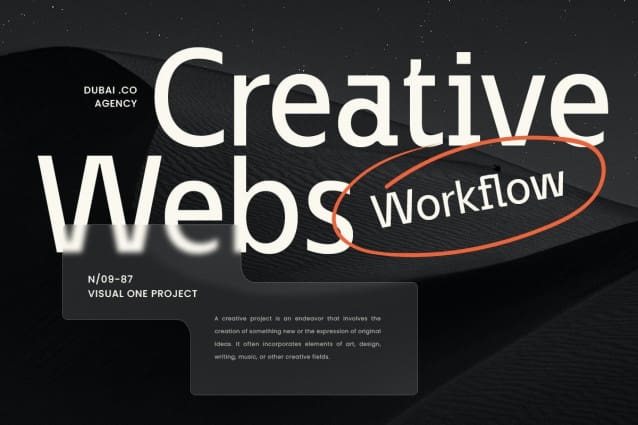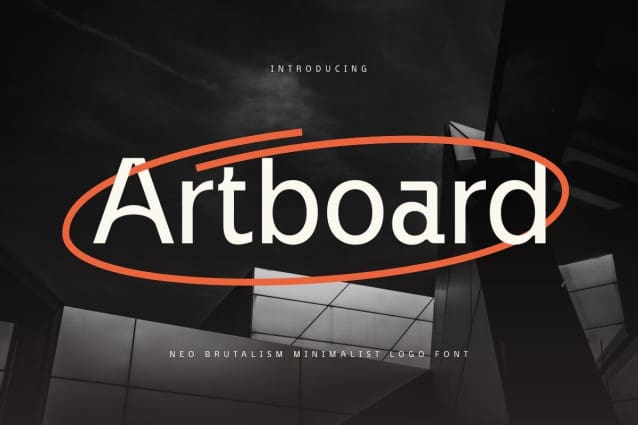
Artboard Font
Artboard Font , a sleek and modern font designed to enhance your corporate identity and professional designs. With its clean lines and contemporary style, Artboard is perfect for creating branding materials that exude sophistication and elegance.
Artboard Font was inspired by the precision and creativity of the corporate design world. Imagine a bustling office where every detail counts and every presentation is polished to perfection. This font captures that essence, offering a blend of modern aesthetics and professional appeal. Artboard is ideal for designers looking to create polished and elegant corporate materials that leave a lasting impression.